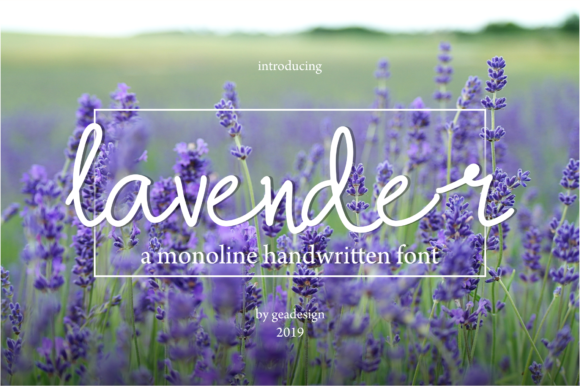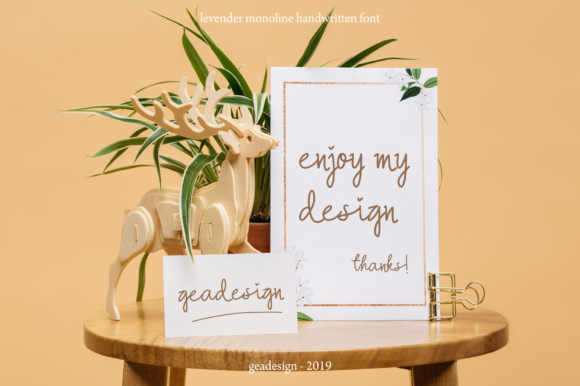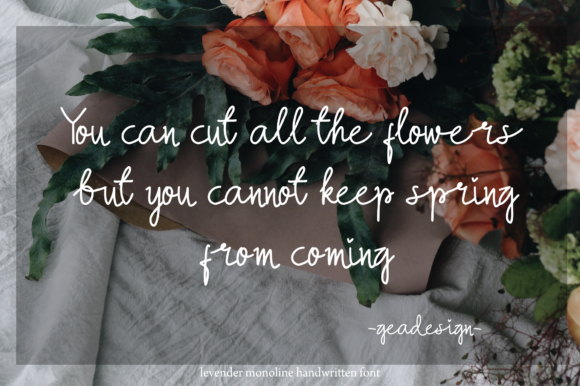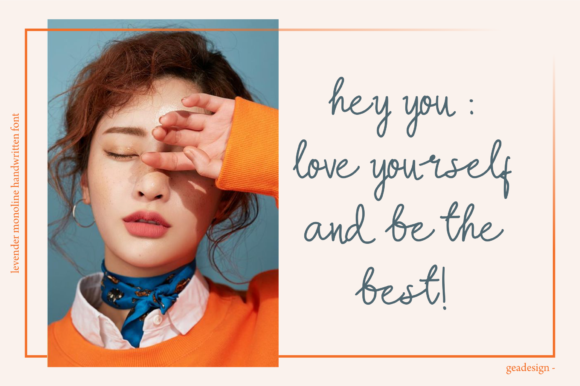
Lavender Font
About Lavender Font
The Lavender is a monoline handwritten font. It was inspired from soft, graceful lavender flowers and is perfect for handwritten designs, quotes, and much more!